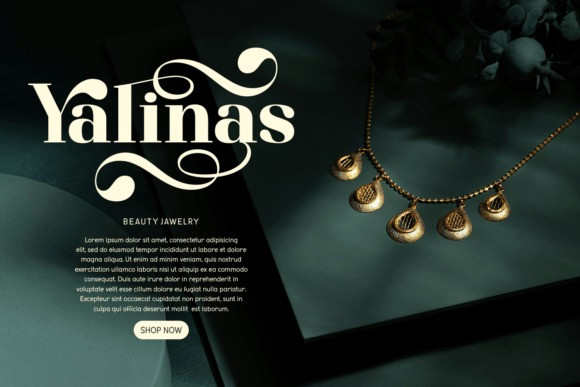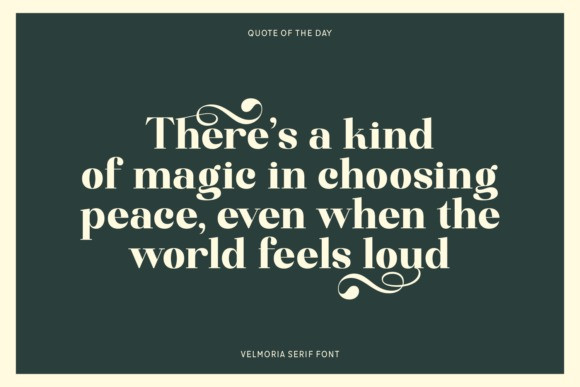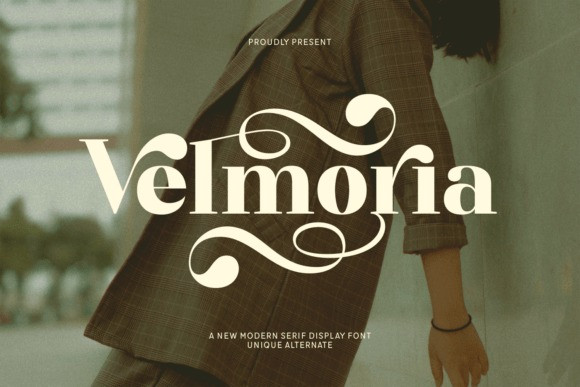
Velmoria Font
Velmoria Font, a new modern serif display font with unique alternates. The typeface is presented in a soft, off-white, set against a stylish, vintage-toned photograph of a person in a plaid blazer. The font’s highly decorative swashes and retro-chic 70s aesthetic are perfect for creating impactful branding, logos, and headlines.